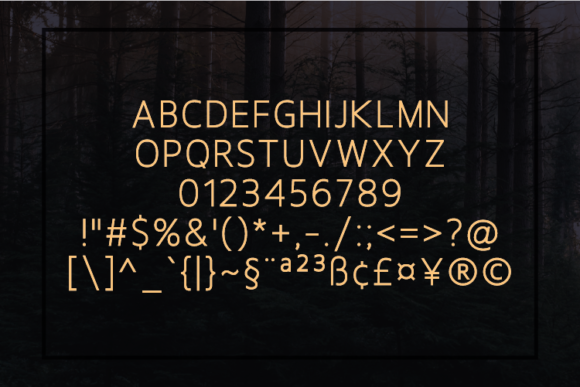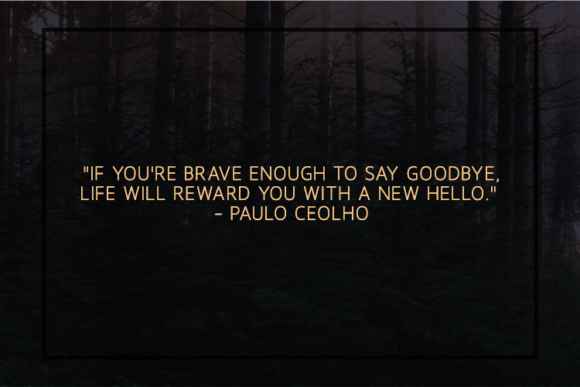
Introducing Brightone Font: Elevate Your Designs with Elegance and Sophistication
In the world of typography, a font can make or break a design. For designers and crafters looking to add a touch of elegance and sophistication to their projects, Brightone Font is an exceptional choice. This magnificent sans serif font is perfect for a wide range of applications, from eye-catching displays and headers to formal invitations, wedding invites, and much more.
The Characteristics of Brightone Font
Brightone Font boasts a clean and modern sans serif design, making it incredibly versatile and easy to read. Its sleek lines and balanced proportions ensure that it looks great in various sizes and resolutions, from large-scale displays to smaller body text. The font’s simplicity and clarity make it an excellent choice for designs where readability is paramount.
What Makes Brightone Font Stand Out
So, what sets Brightone Font apart from other fonts in its category? Here are a few key features that make it a standout choice for designers and crafters:
- Clean and Modern Design: Brightone’s sans serif design gives it a fresh and contemporary look that’s perfect for modern designs.
- High Readability: The font’s clear lines and balanced proportions ensure that it’s easy to read, even at smaller sizes.
- Versatility: Brightone Font can be used for a wide range of projects, from displays and headers to body text and captions.
- Elegance and Sophistication: The font’s sleek design and balanced proportions give it an air of elegance and sophistication, making it perfect for formal invitations, wedding invites, and other special occasions.
Use Cases for Brightone Font
Brightone Font is an incredibly versatile font that can be used for a wide range of projects. Here are some use cases where Brightone Font truly shines:
- Displays and Headers: Use Brightone Font to create eye-catching displays and headers that grab attention and set the tone for your design.
- Invitations and Wedding Invites: The font’s elegance and sophistication make it perfect for formal invitations, wedding invites, and other special occasions.
- Signage and Posters: Brightone Font is an excellent choice for signage and posters, where its clear lines and balanced proportions ensure that your message is communicated clearly.
- Digital and Print Media: Use Brightone Font in digital and print media, including brochures, flyers, and social media graphics.
Tips for Using Brightone Font Effectively
To get the most out of Brightone Font, here are some tips for using it effectively in your designs:
- Experiment with Font Sizes: Brightone Font looks great in various sizes, so don’t be afraid to experiment with different font sizes to find the one that works best for your design.
- Pair with Other Fonts: Brightone Font pairs well with other fonts, so try combining it with a serif font for body text or a script font for added elegance.
- Use Color Effectively: Brightone Font looks great in a range of colors, so experiment with different colors to find the one that works best for your design.
In conclusion, Brightone Font is an exceptional sans serif font that’s perfect for designers and crafters looking to add a touch of elegance and sophistication to their projects. Its clean and modern design, high readability, and versatility make it an excellent choice for a wide range of applications. Whether you’re creating displays, headers, invitations, or wedding invites, Brightone Font is sure to elevate your designs and leave a lasting impression.